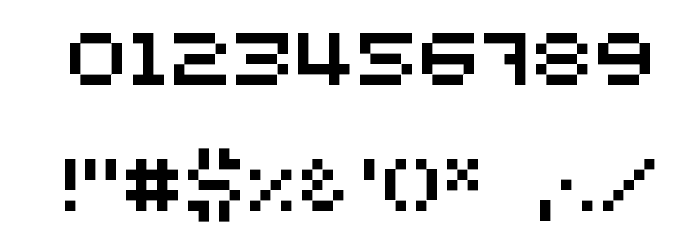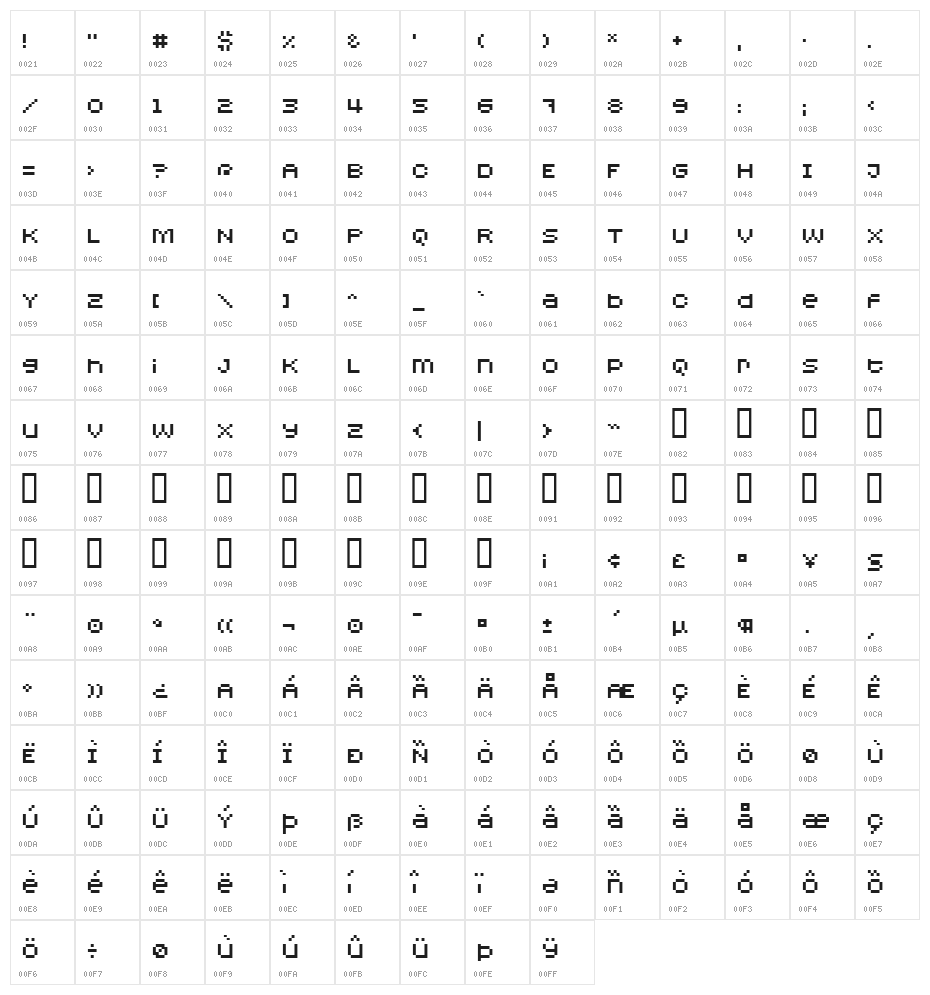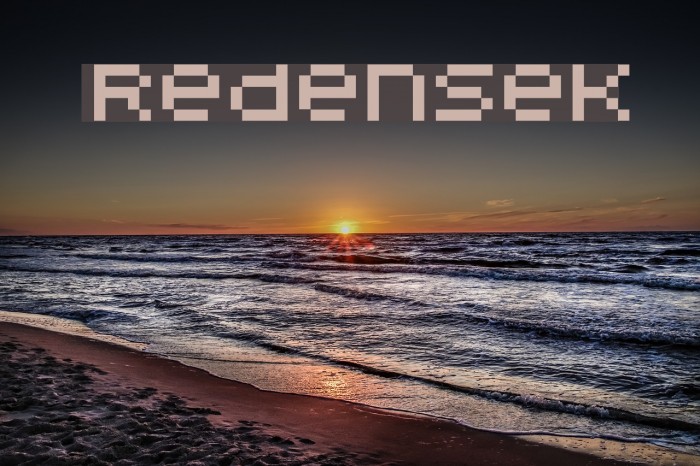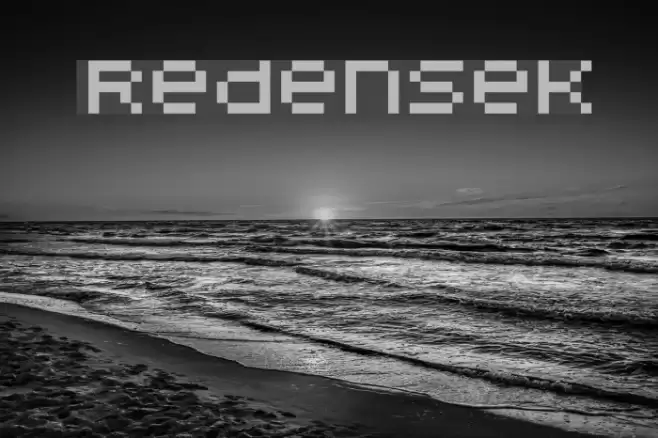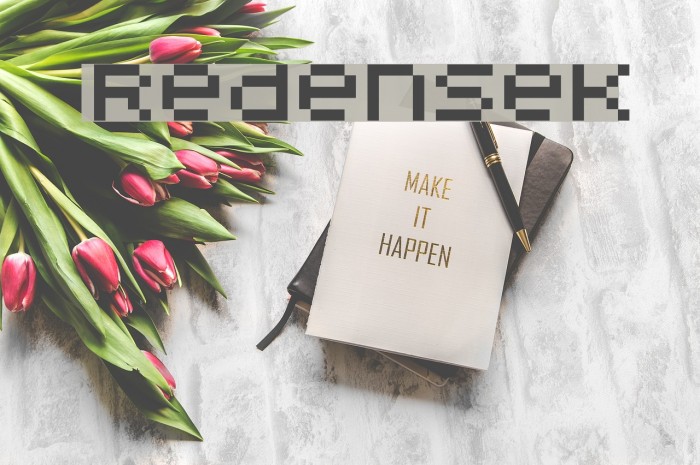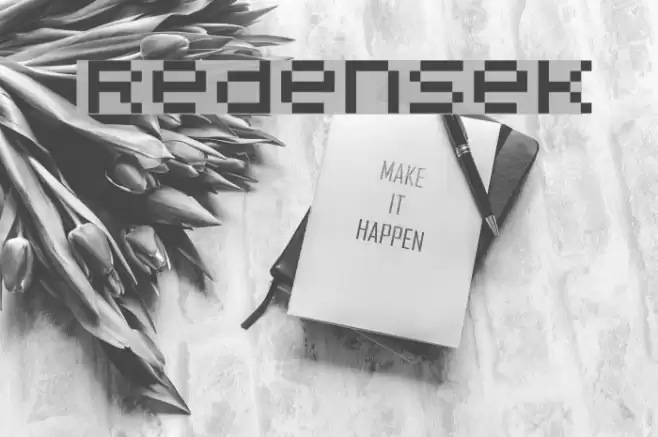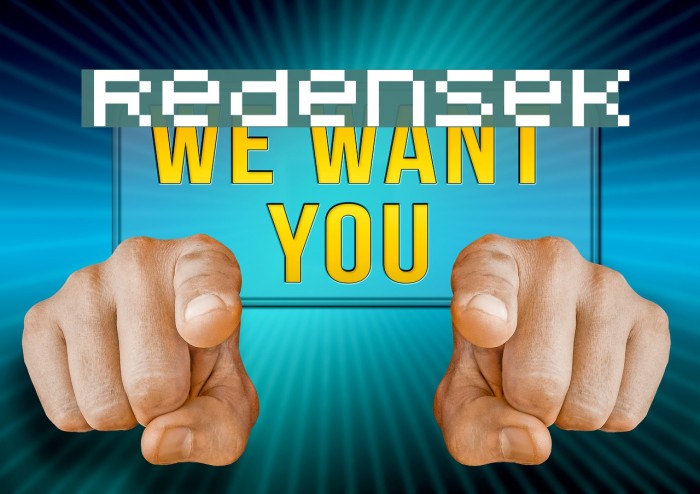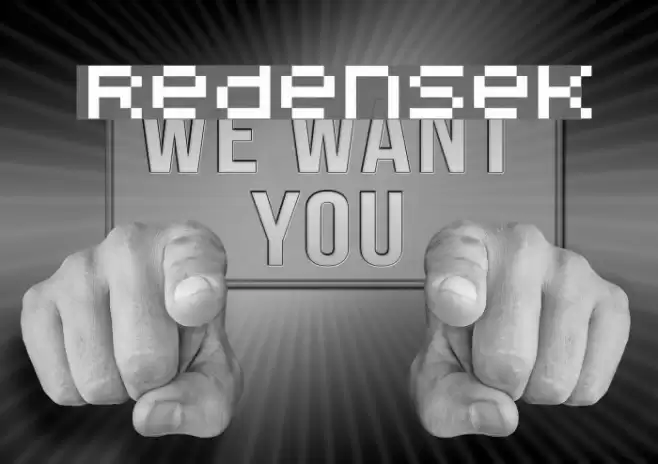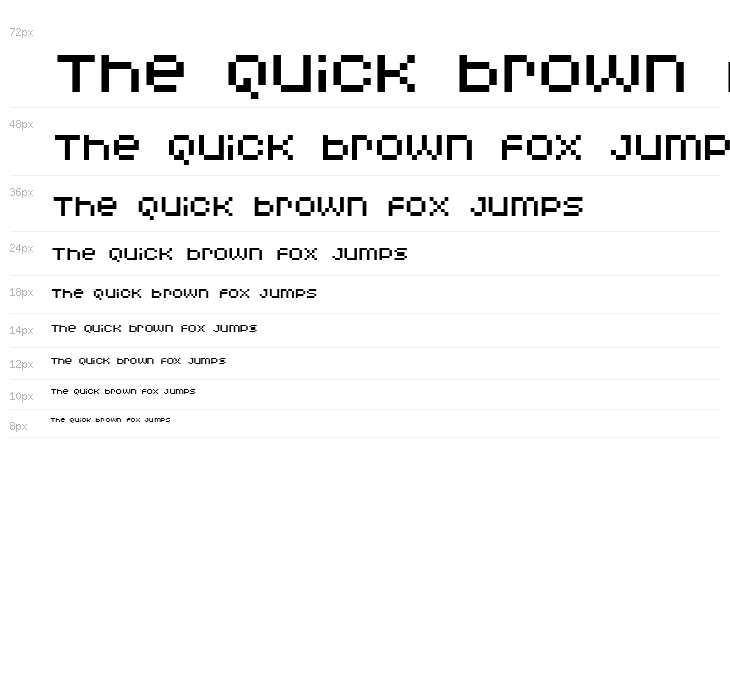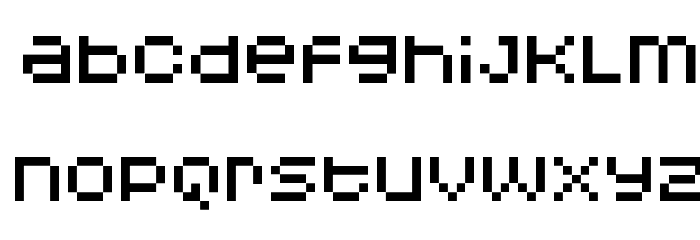
Redensek Font
Redensek Description
This font features a pixelated, blocky design reminiscent of early digital displays and video games. Each character is constructed with a grid-like precision, giving it a distinctly retro and technological feel. The uppercase and lowercase letters maintain a consistent height, contributing to a uniform appearance. The numerals and special characters follow the same pixelated style, ensuring a cohesive look across all elements. This font's geometric and modular nature makes it ideal for projects that aim to evoke nostalgia or a digital aesthetic.
| Use Case | Headlines, Logos, Digital displays |
| Proposed Projects | Ideal for video game design, digital art projects, retro-themed posters, and tech-related branding. |